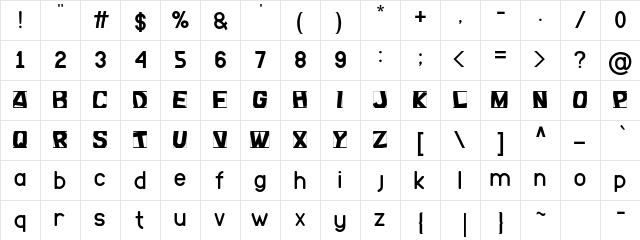
THE HIDDEN Regular
| Designer | Indra Gunawan |
THE HIDDEN takes a measured approach to typography — its balanced proportions and neutral character make it a reliable workhorse for both digital and print work.